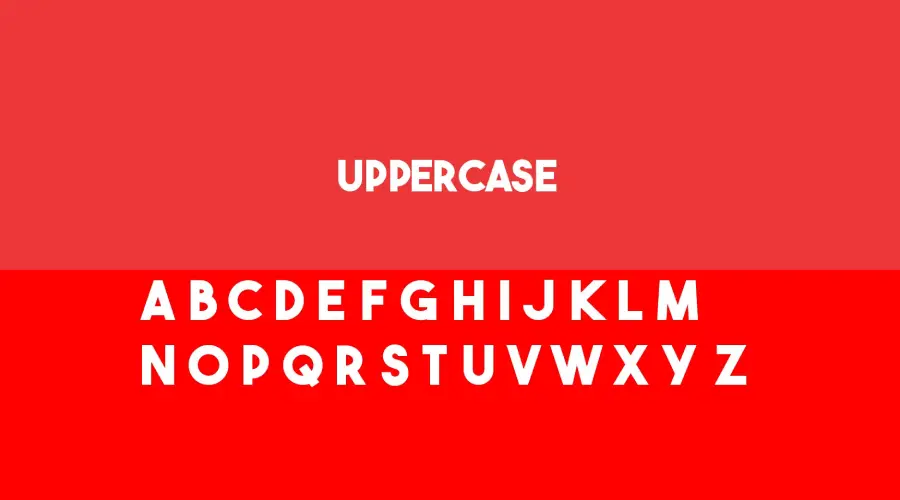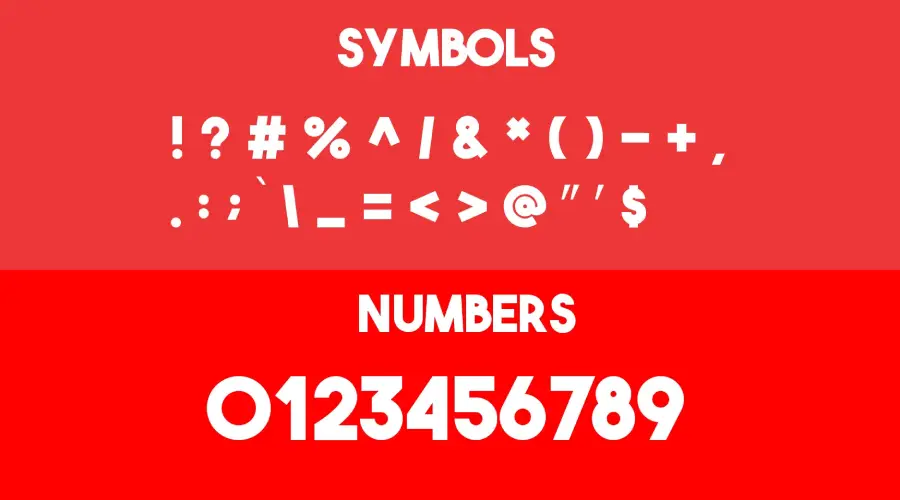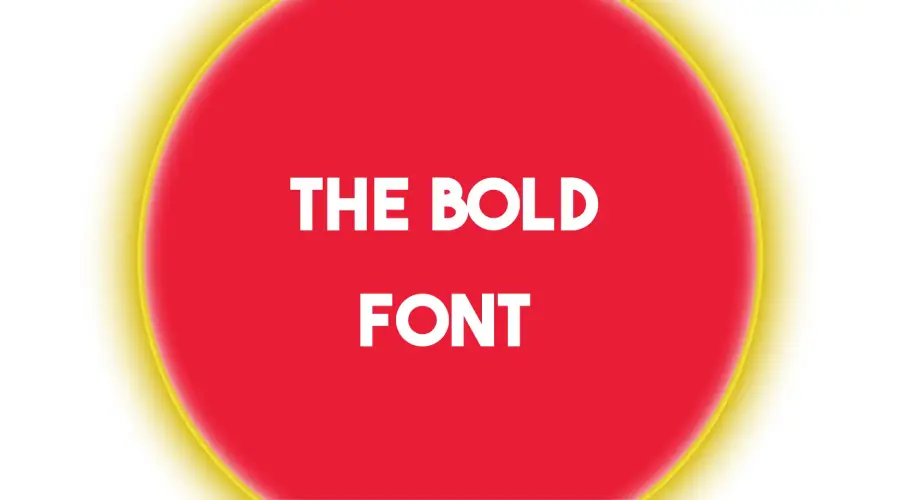
Are you looking for a font that can make your text stand out and catch the attention of your audience? Do you want a font that can be used for various purposes, such as logos, headlines, posters, banners, and more? If so, you might want to check out The Bold font. Let’s look at this amazing font and some of its designs.
Origin and Characteristics of The Bold Font
The Bold is a sans-serif bold font. Sven Pels designed this font. It was born out of curiosity about equal-width strokes in typography. This unique typeface combines strength and fun, capturing attention and leaving a lasting impression on the viewer. It has a simple and clean design, with smooth curves and straight lines. It also has a geometric and balanced structure, giving it a professional and elegant look.
The Bold Font is a multipurpose font that can fit any design need. You can use it for designing logos, magazines, banners, boxes, invitations, and more. Its elegant and refined design can match different design moods and themes. Whether you want to create a strong and confident impression or a fun and cheerful vibe, this flexible font enables designers to produce eye-catching and attractive compositions that stand out.
The Bold font is a modern and versatile sans-serif typeface that can make your text stand out and catch your audience’s attention. It has a simple and clean design with smooth curves and straight lines. It also has a geometric and balanced structure that gives it a professional and elegant look. Its unique design and wide range of uses make it a valuable addition to any designer’s toolkit.